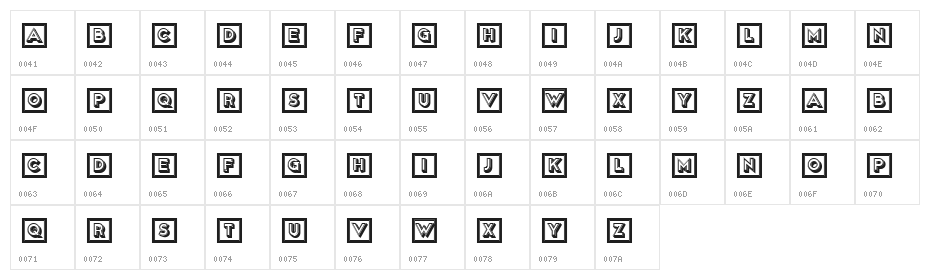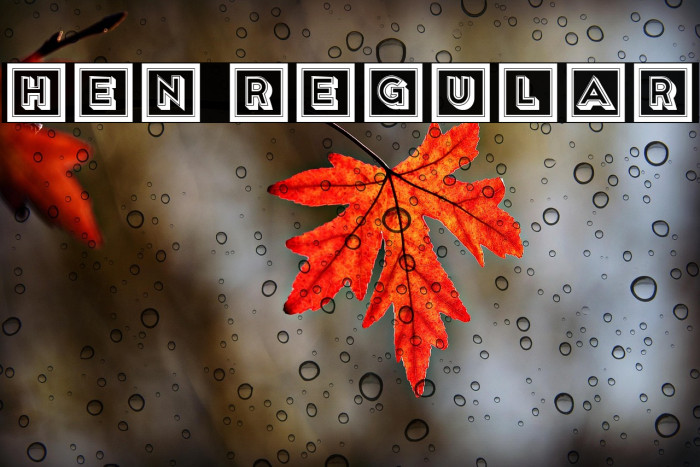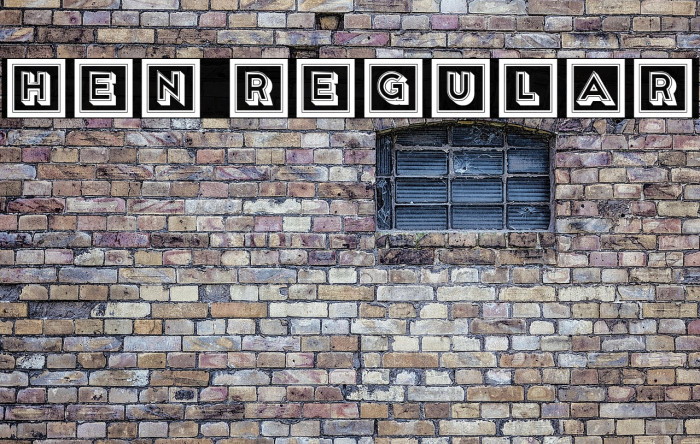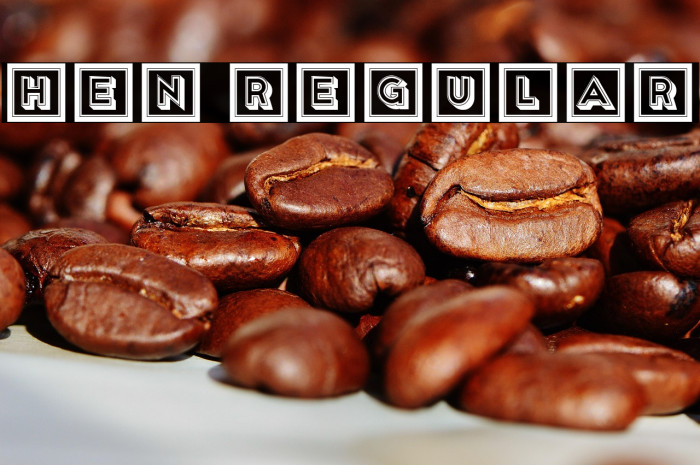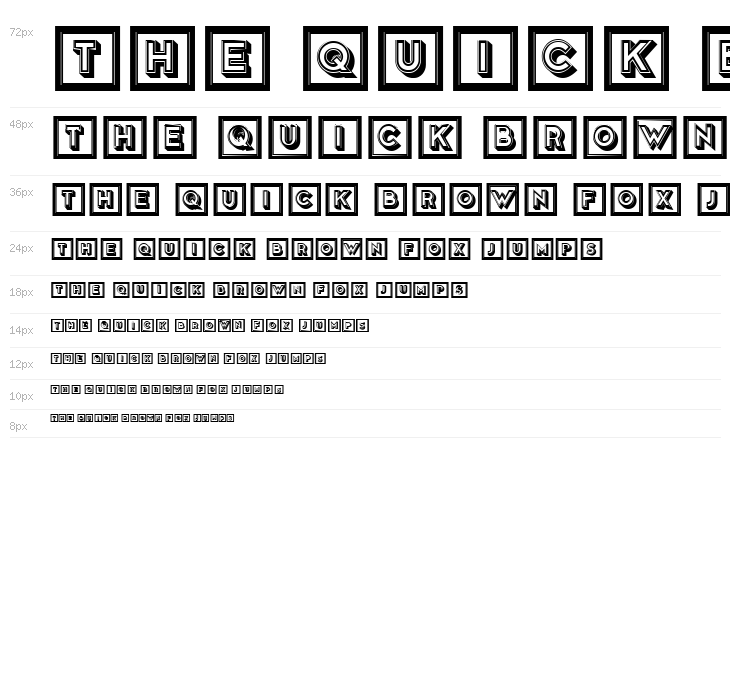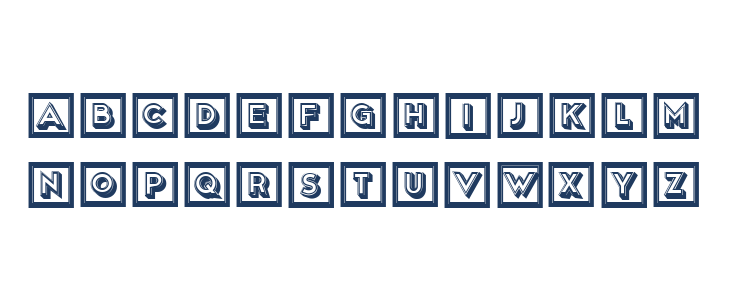
Hen Regular Font
Hen Regular Description
This font features bold, uppercase letters enclosed within a square border, giving it a distinct and structured appearance. Each character is designed with a three-dimensional effect, adding depth and a sense of movement. The font's geometric style is consistent across all letters, creating a cohesive and modern look. The use of shadows and outlines enhances the visual impact, making it suitable for attention-grabbing designs. Its unique style is both playful and professional, making it versatile for various creative projects.
| Proposed Projects | Ideal for posters, logos, headlines, and any design requiring a bold statement. |